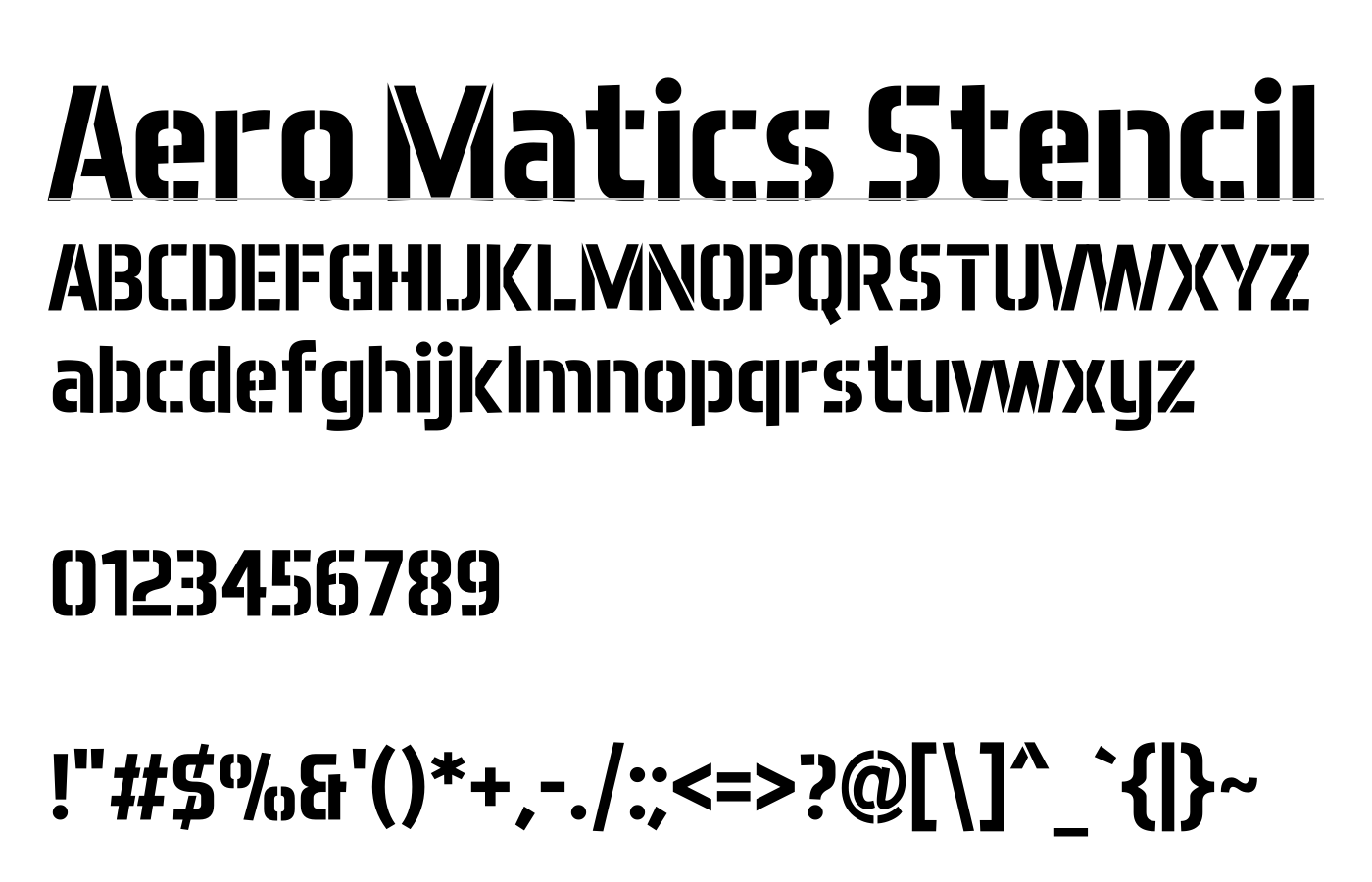
Aero Matics Stencil is a bold, condensed sans serif stencil font with strong geometric shapes and sharp angles that create a distinct industrial and futuristic feel. Its high contrast between thick and thin strokes, along with the unique stencil breaks, gives it a dynamic, technical look perfect for headlines, branding, and design projects that want to convey innovation and strength. This font works best in logos, posters, and packaging where a modern, striking impression is needed.
Aero Matics Stencil Font